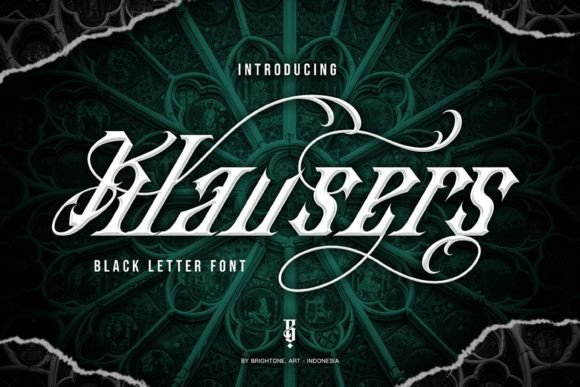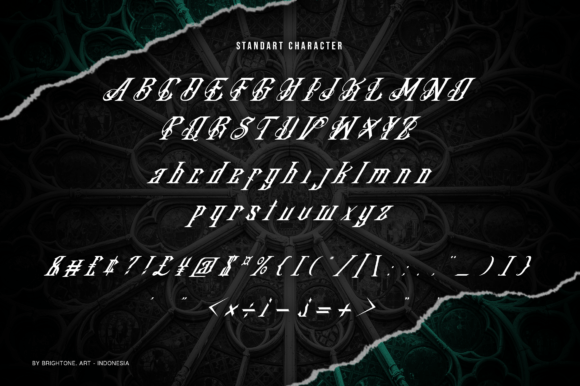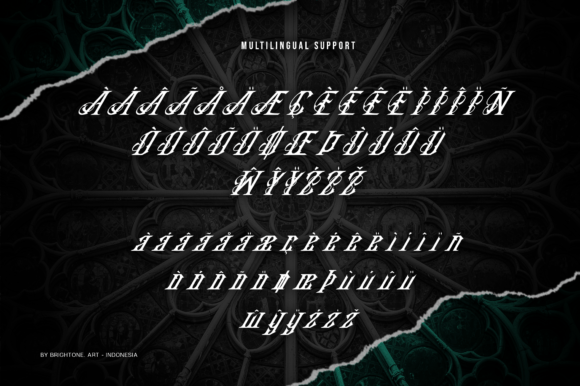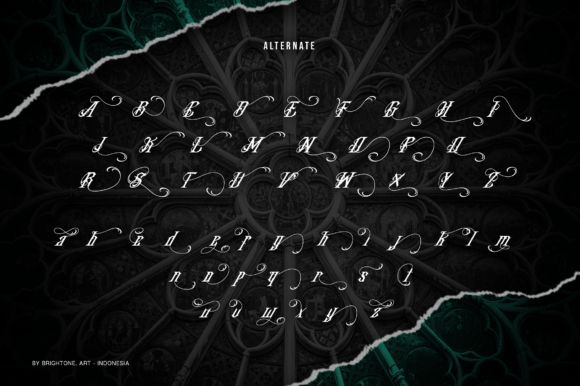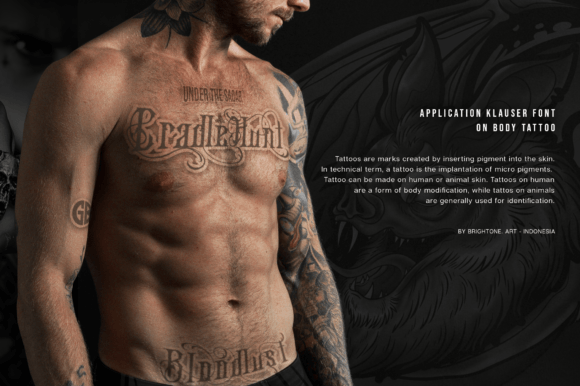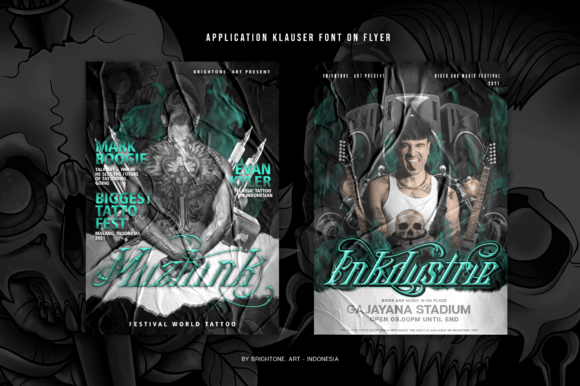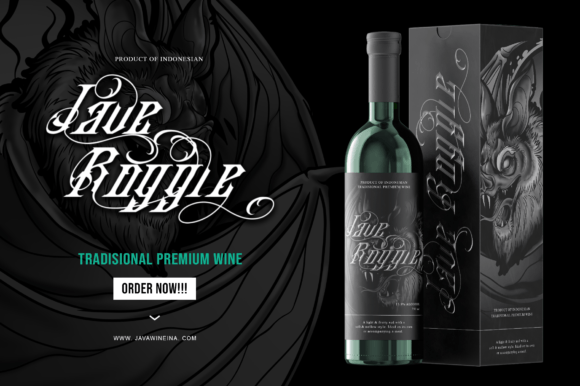
The Art of Typography: Unlocking Your Creativity with Klausers Font
Have you ever stared at a blank canvas, pencil in hand, trying to bring a character to life? The blank page can be daunting, but it’s in those moments of creative uncertainty that we discover our true potential. For designers, the right font can be the spark that ignites a brilliant idea.
That’s where Klausers Font comes in – a stunning blackletter italic font that’s designed to unleash your creativity. With its unique characters and swash style, this font is perfect for logo lettering, shirt design, tattoo studios, and branding projects. The PUA encoding feature allows you to access all the glyphs and swashes with ease, making it a valuable tool for designers who demand precision and flair.
- Unique Characteristics: Klaussmann is a script font with elegant and sophisticated feel, ideal for invitations, weddings, and luxury branding
Klausers Font Review
As a designer, I’ve had the chance to work with Klausers Font, and here’s my honest take on it.
Klausers Font has a unique, elegant feel to it. The serif details are well-executed, giving it a classic touch that works well for traditional designs.
- High-quality details, such as subtle line variations and nuanced serif shapes
- Good legibility, making it suitable for body text and short paragraphs
- Supports a range of languages, including Latin, Cyrillic, and Greek scripts
Klausers Font is not without its flaws. It’s not as versatile as other fonts, and its limited font family sizes can make it less suitable for more complex projects.
- Only a limited number of font family sizes are available
- Lack of italic or bold variations, which can limit design options
- May not be the best choice for modern or minimalist designs
Overall, Klausers Font is a solid choice for traditional designs that require a classic, elegant feel. However, it may not be the best fit for more modern or experimental projects.
The Klaussner Font is commonly used for:
- Typography-heavy designs
- Combining with other fonts for a unique look
Playfair Display is a luxurious, high-end serif font ideal for creating a sense of elegance and sophistication. It features intricate details and a classic feel, making it perfect for use in high-end branding, advertising, and editorial design. Compared to Klausers Font, Playfair Display has a more refined and sophisticated look, making it suitable for premium products and services.
Didot is a classic serif font known for its sleek and modern look. It features a strong, geometric feel and is often used in high-end fashion, luxury goods, and fine art. Compared to Klausers Font, Didot has a more streamlined and modern appearance, making it suitable for contemporary designs that require a touch of sophistication.
Bodoni is a classic serif font with a strong, geometric feel. It features a unique, almost architectural look that is often used in fashion, luxury goods, and high-end branding. Compared to Klausers Font, Bodoni has a more dramatic and attention-grabbing appearance, making it suitable for designs that require a strong, luxurious feel.
Carolyna Pro is a modern, elegant serif font that features a unique blend of classic and contemporary elements. It is often used in high-end branding, advertising, and editorial design, and is known for its versatility and sophistication. Compared to Klausers Font, Carolyna Pro has a more refined and sophisticated look, making it suitable for premium products and services.